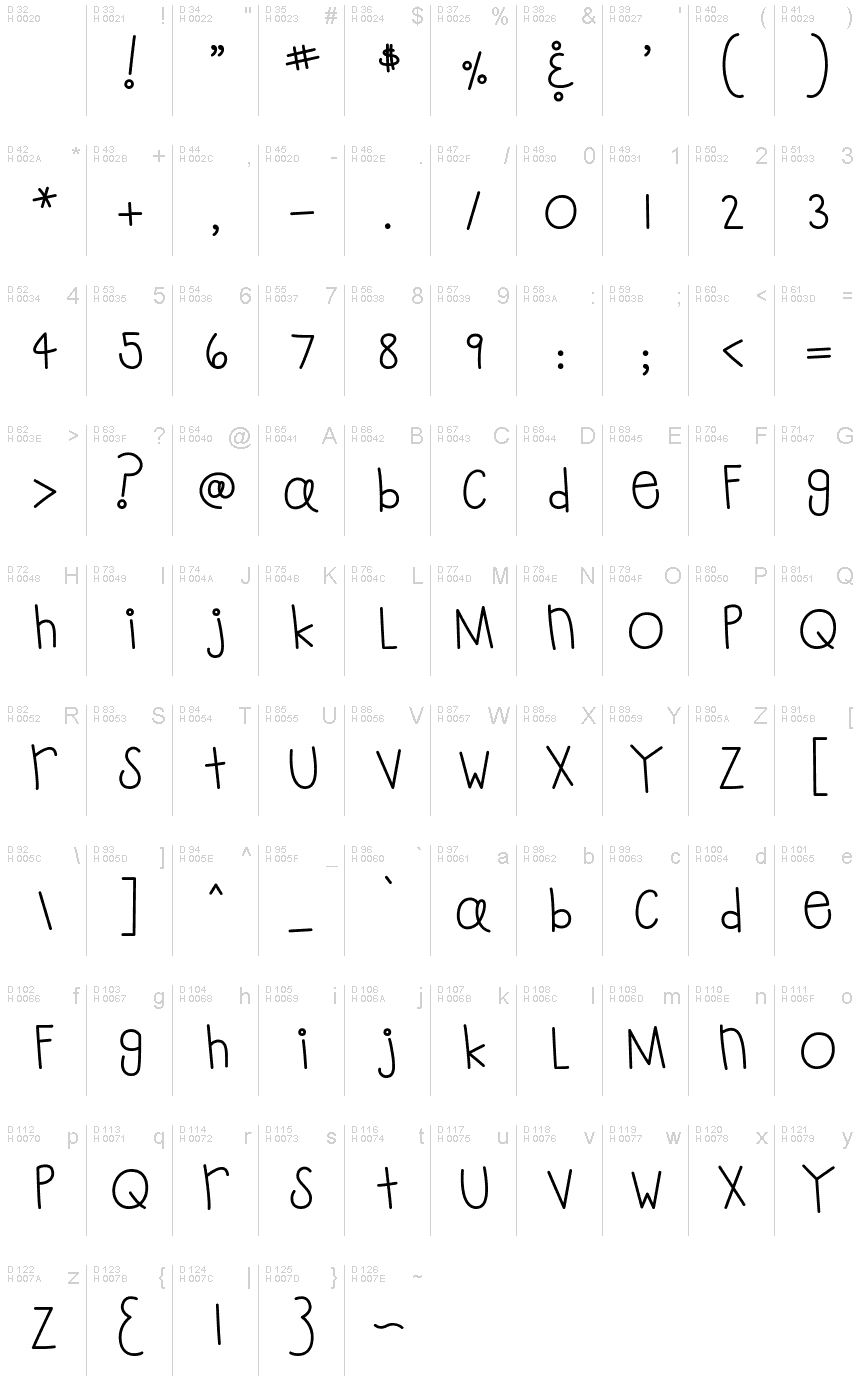
MTF Playtime
MTF Playtime, a charming creation by Miss Tiina Fonts, is the perfect choice for projects seeking a whimsical touch. This handwritten font adds a delightful playfulness to any design, with its light weight capturing the essence of carefree joy. Whether you're designing children's books, playful logos, or inviting invitations, MTF Playtime will effortlessly infuse your creations with an air of innocence and creativity. Let this enchanting typeface be your go-to for projects that require a touch of whimsy and light-heartedness.